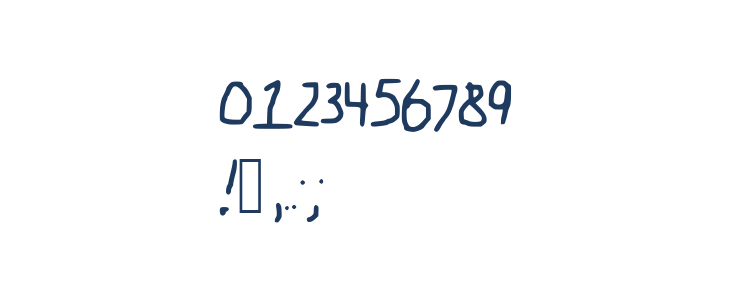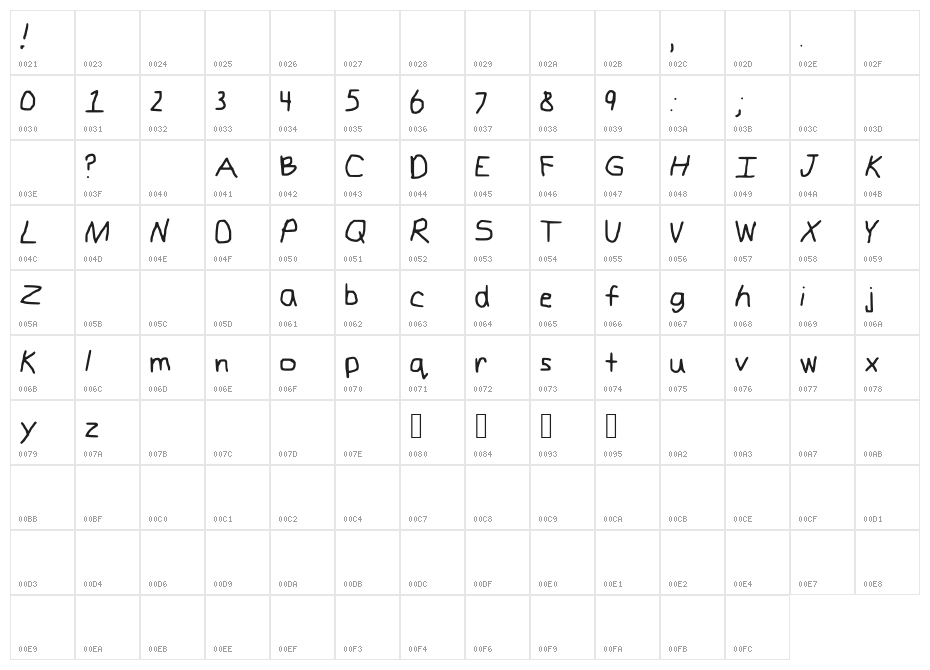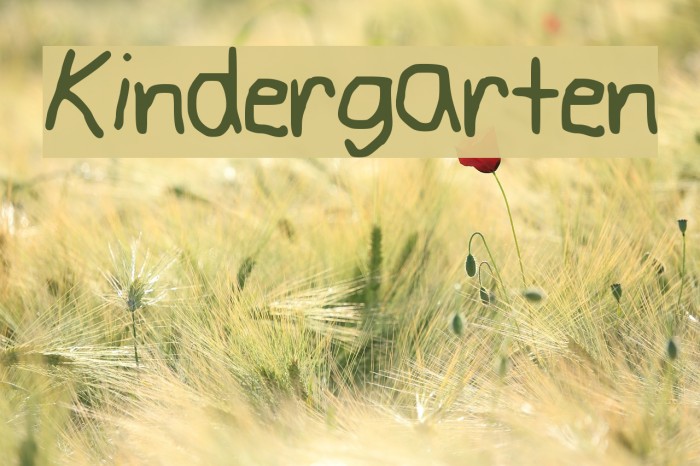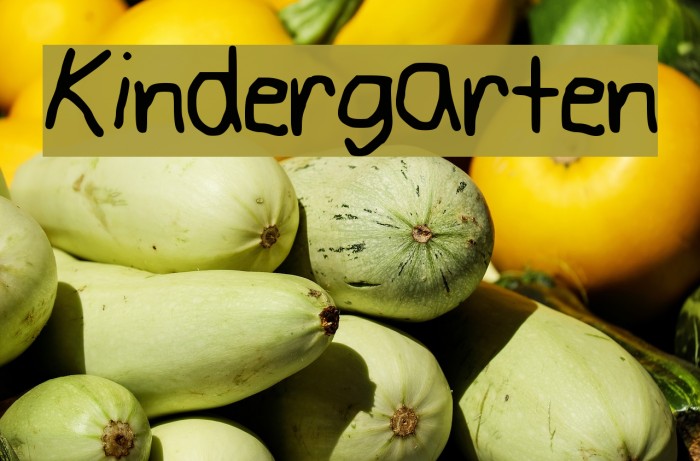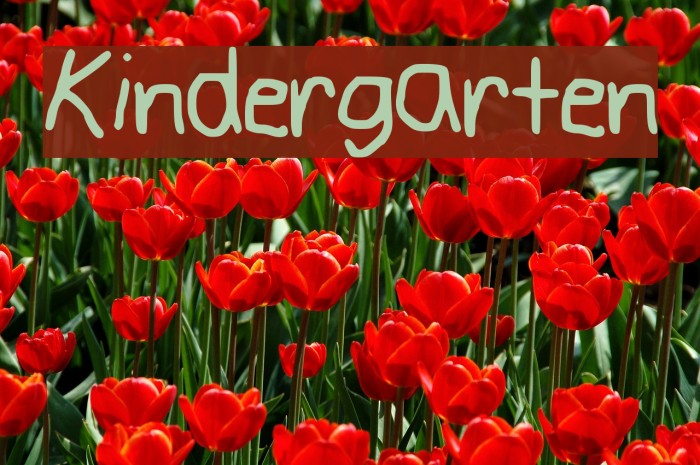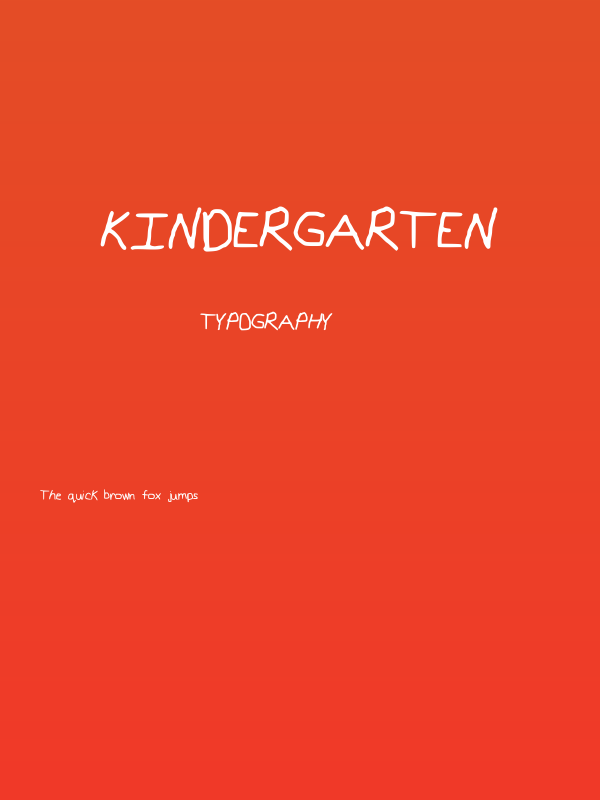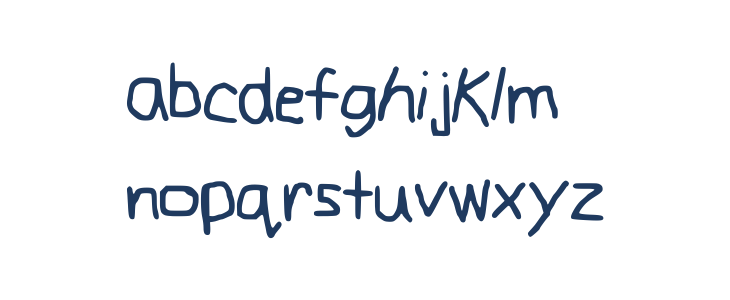
Kindergarten Font
Kindergarten Description
This playful and whimsical font mimics the natural, unrefined handwriting of a child. Each letter is crafted with a sense of innocence and spontaneity, featuring irregular strokes and varying line thicknesses that add to its charm. The characters are slightly tilted and uneven, creating a lively and dynamic appearance. This font captures the essence of youthful creativity and is perfect for projects that require a touch of fun and informality. Its unique style makes it stand out, while still maintaining readability.